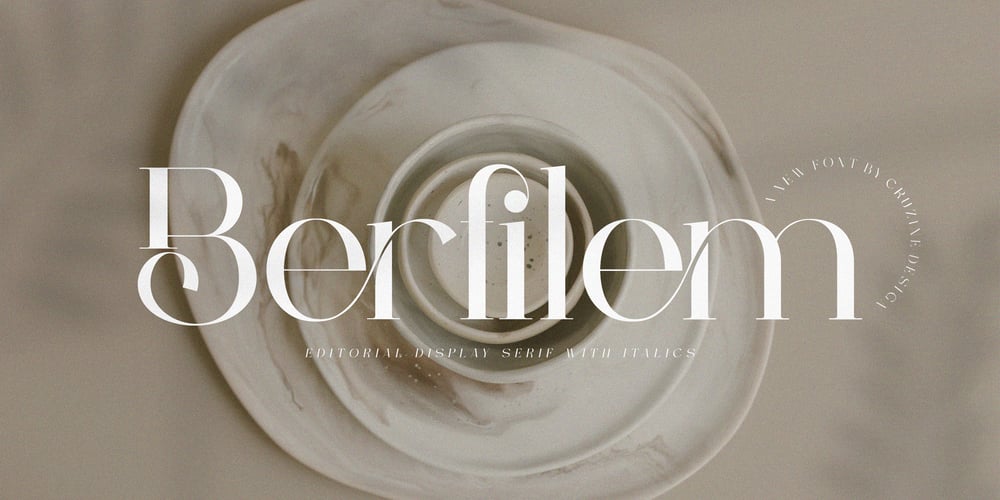
Berfilem Font Family was designed by Peter Olexa and published by Deeezy. Berfilem contains 1 styles and family package options. Trendy, elegant, artistic, luxury & modern style serif font for your fancy projects. Elegant, fashion and editorial style on Berfilem font will be great for any branding project. Lot of alternates and ligatures will help you to create unique and original logo design or website header! Enjoy ๐